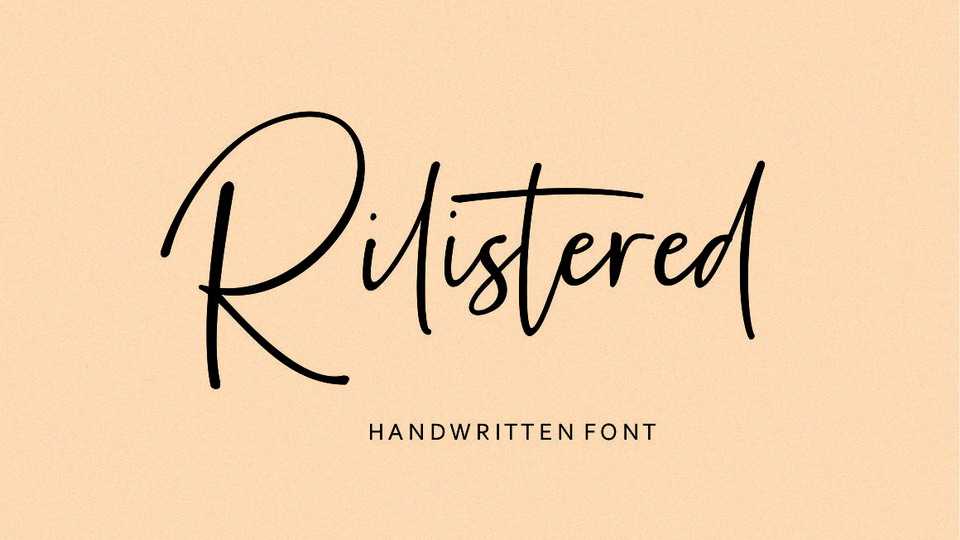
Download Rilistered font, a stylish signature style handwritten script. Perfect for personal branding and logo, wedding designs, social media posts, advertisements, photography, watermark, special event, magazine,web design, etc.
Designer: Fikry Alif